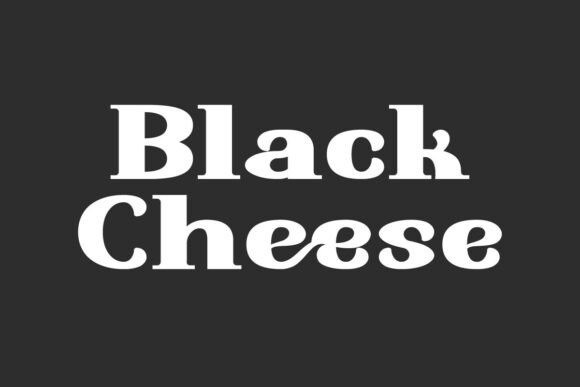
Black Cheese Typeface
Black Cheese Typeface is a supremely bold and quirky serif display font that marries the confidence of a thick slab serif with unexpected, charmingly curled letterforms.
This visually striking Black Cheese font features a heavy, commanding weight balanced by unique lowercase ‘e’ and ‘s’ glyphs that introduce a flirty, modern contrast to the solid structure. Ideal for packaging, short headlines, and dynamic branding, the Black Cheese typeface commands attention while maintaining a playful and approachable character.
This bold serif display font is the perfect choice when you need a typeface that is both powerful and distinctively charismatic.